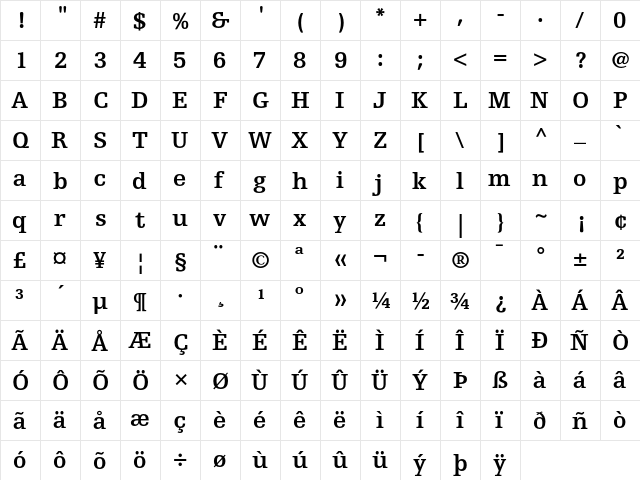
Egyptienne F 65 Bold
Design Context for Egyptienne F Typeface
Egyptienne F takes a measured approach to typography — its balanced proportions and neutral character make it a reliable workhorse for both digital and print work. Its bold stroke weight gives it real presence on the page.
Pro Tip: Use Egyptienne F in both headline and body roles to test its range before committing to a single application.